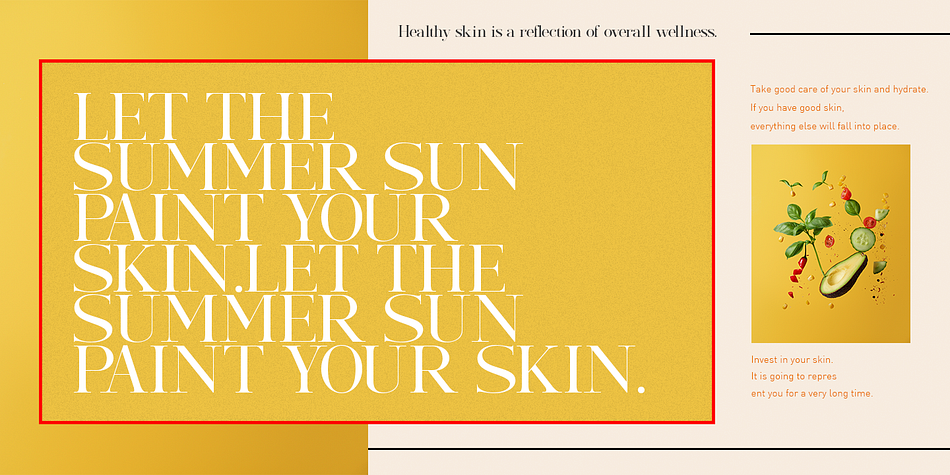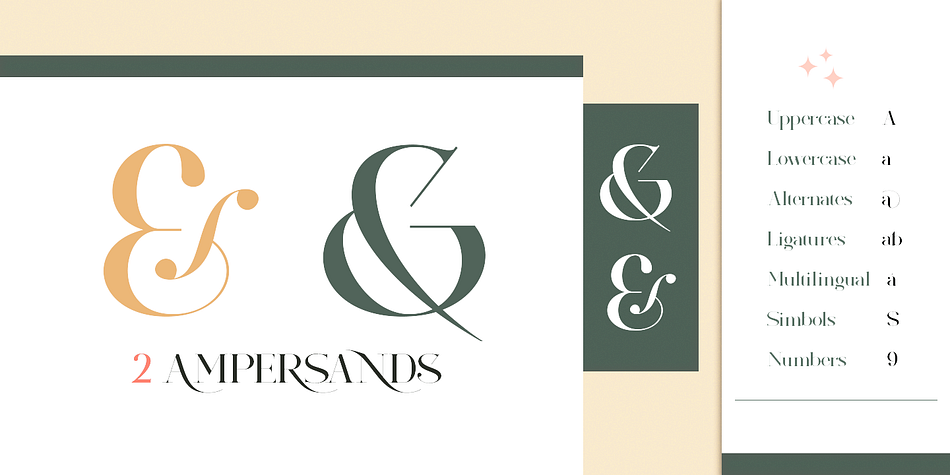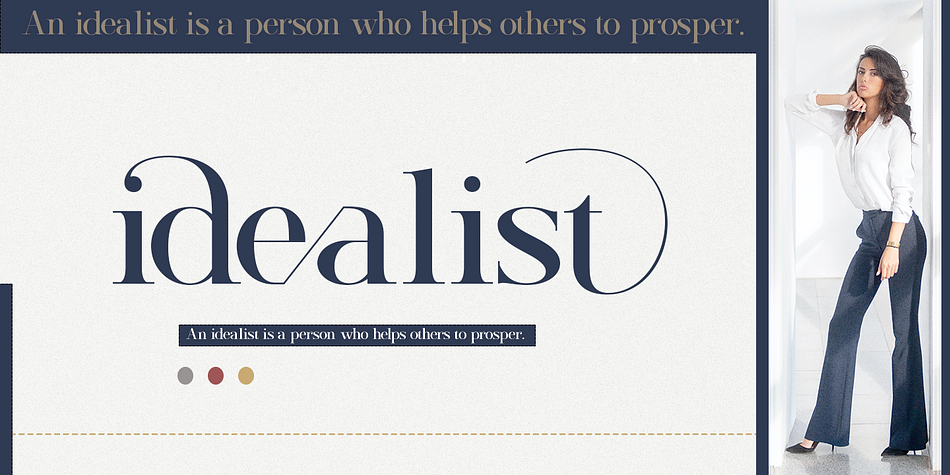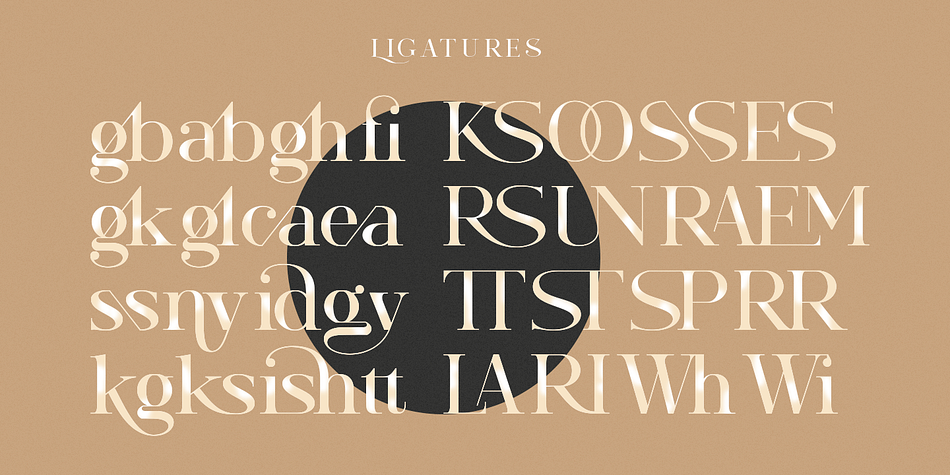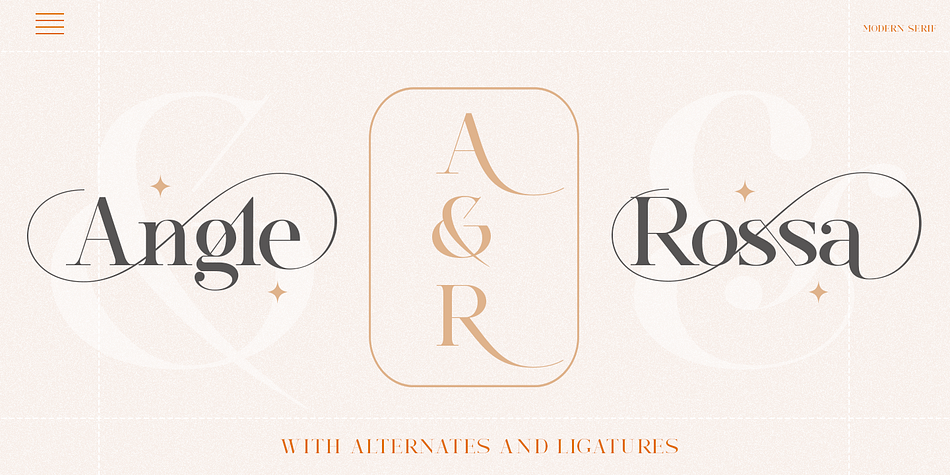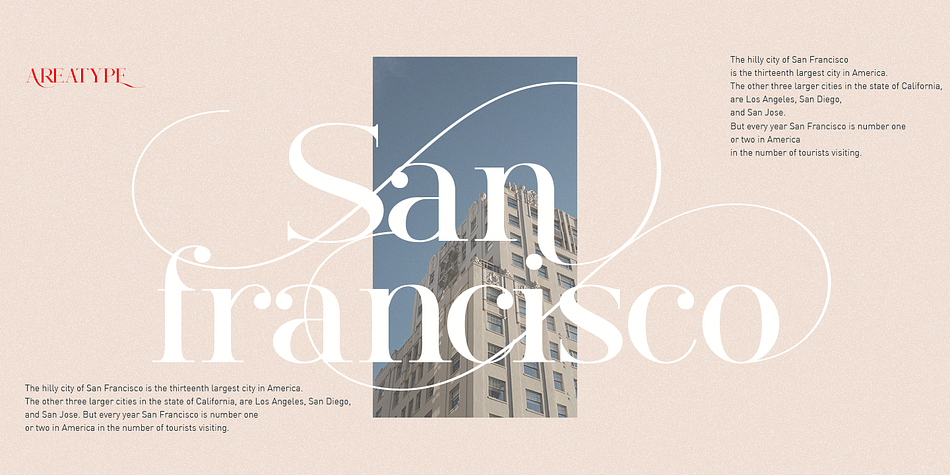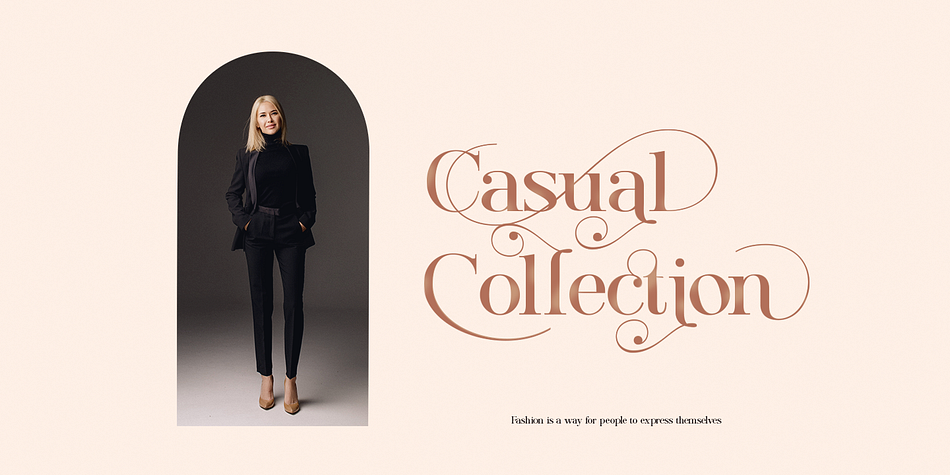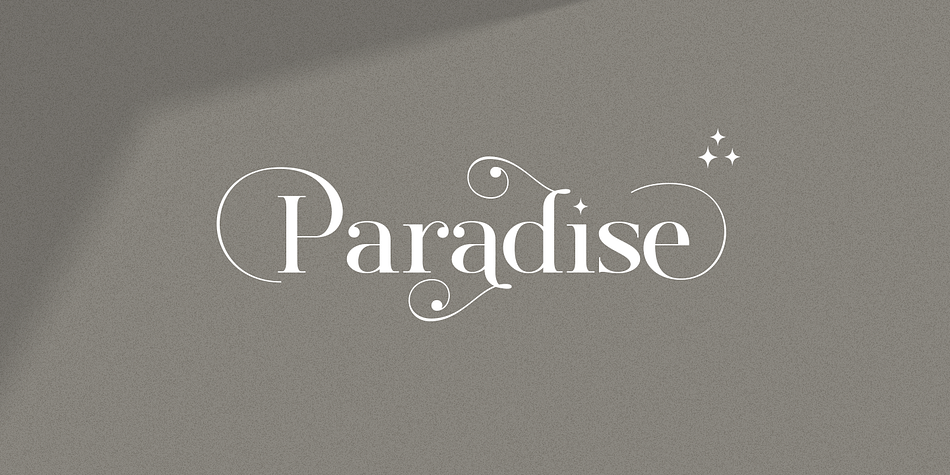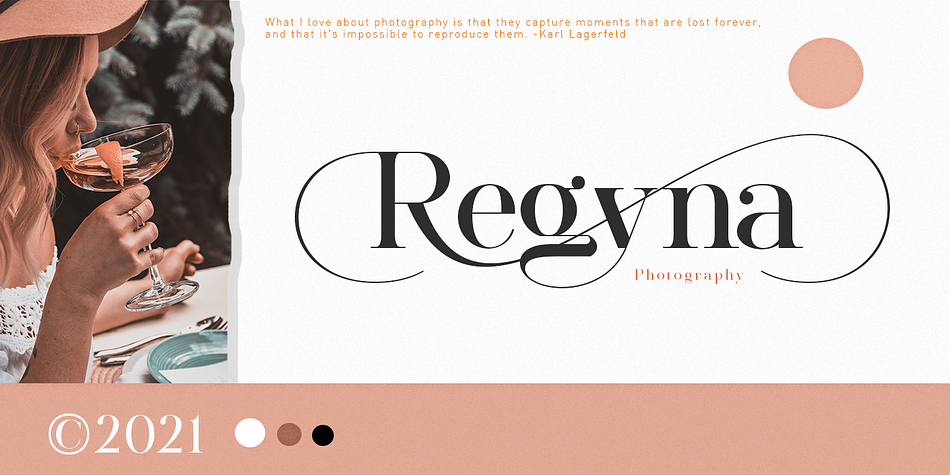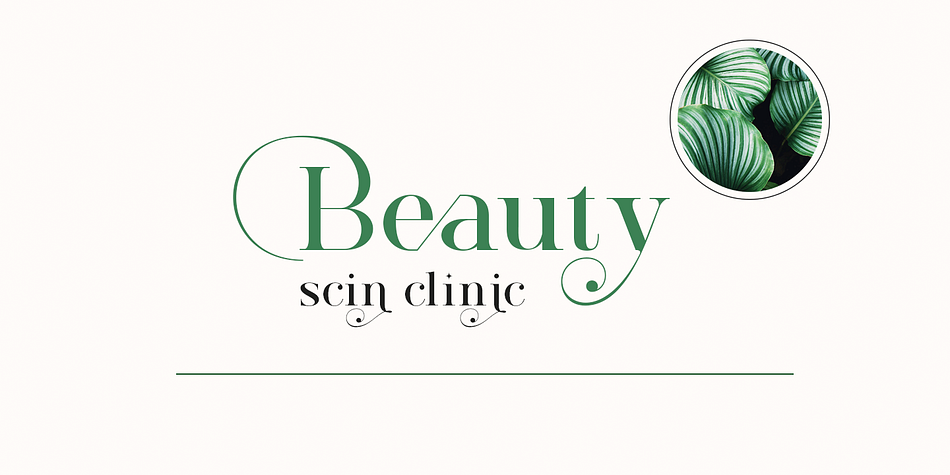
Morissa is a display serif and serif font family published by Area Type Studio.
Morissa Display is a very versatile font.perfect for magazine images, to wedding invitations, to branding, poster design, and more.